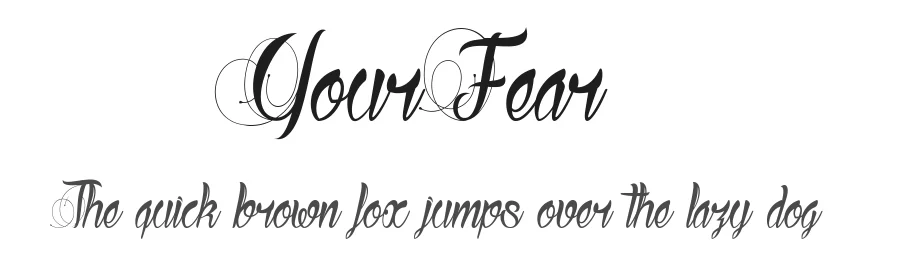
About Beauty Script Font
| Designer | Max Infeld Xerographer Fonts |
Beauty Script Font is a script font that shines as a display or heading face. Pair it with a clean sans-serif or serif font for body text β the contrast creates a clear hierarchy while the two styles stay balanced and easy to read.
Beauty Script Font